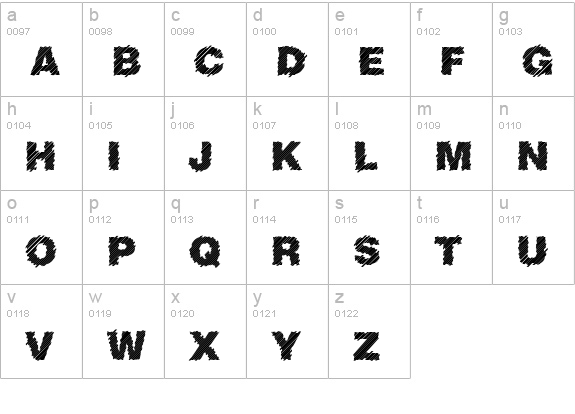
Sliced Juice Font Details
Sliced Juice font is a modern and playful typeface that brings a fresh and stylish look to any design project. With its unique sliced letterforms and bold, eye-catching style, this font is sure to make a statement. Whether you're creating a logo, poster, or website design, Sliced Juice font will add a touch of creativity and fun. Best of all, Sliced Juice font is available for free download at FontsMarket.com. This means you can easily access this versatile font and use it in your projects without any cost. Don't miss out on the opportunity to add Sliced Juice font to your collection and elevate your designs with its contemporary and dynamic aesthetic.